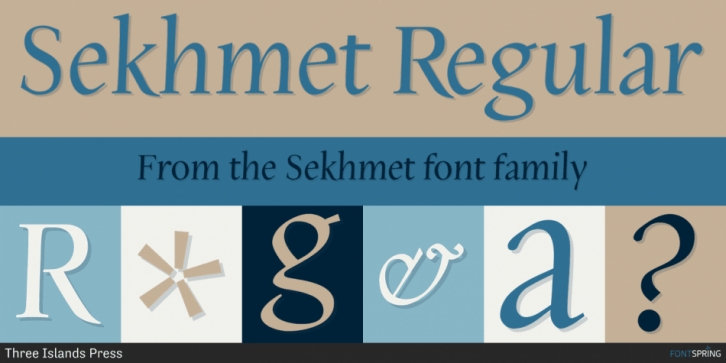
Sekhmet is a serif font family. This typeface has two styles and was published by Three Islands Press.
Stylish, elegant, and alluring, Sekhmet got its name from the lion-headed war goddess of ancient Egypt. And the typeface does possess a kind of feline, forward-directed energy - a result of its calligraphic detailing combined with a very slight slope in the roman. Sekhmet is essentially a display face; still, it’s as carefully crafted as any of the designer’s text fonts and so also works well in reasonably large text blocks, especially at larger point sizes. Comes with a book-weight roman and calligraphic italic.